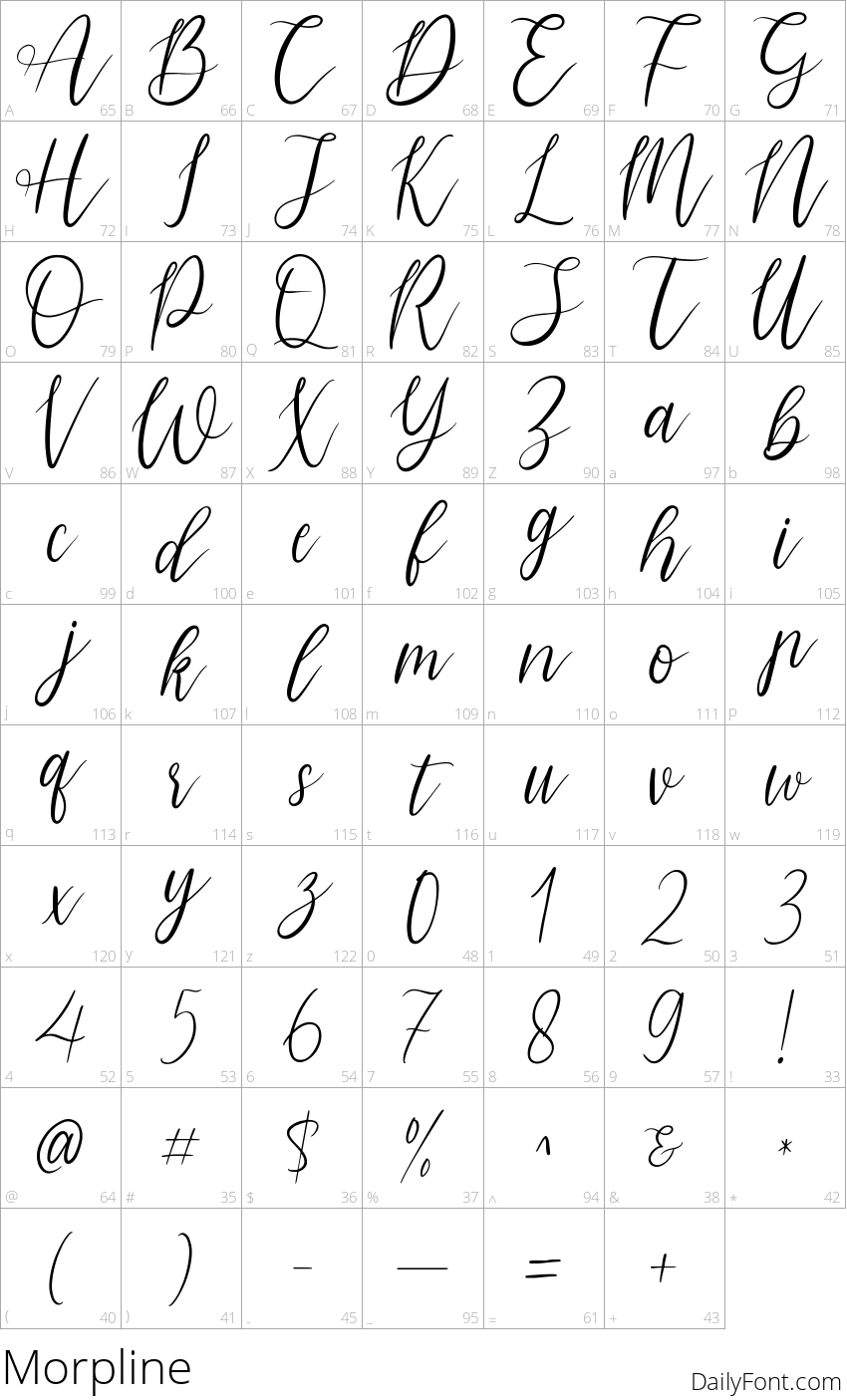
Morpline by Allouse Studio
Morpline is an elegant and magical script font that has been carefully crafted to add a touch of sophistication to any design project. Its delicate, flowing letters and attention to detail make it a great choice for adding a touch of whimsy and refinement to your work. Whether you're looking to create a fairy tale atmosphere or simply want to add some finesse to your designs, Morpline is a versatile and beautiful font to consider.